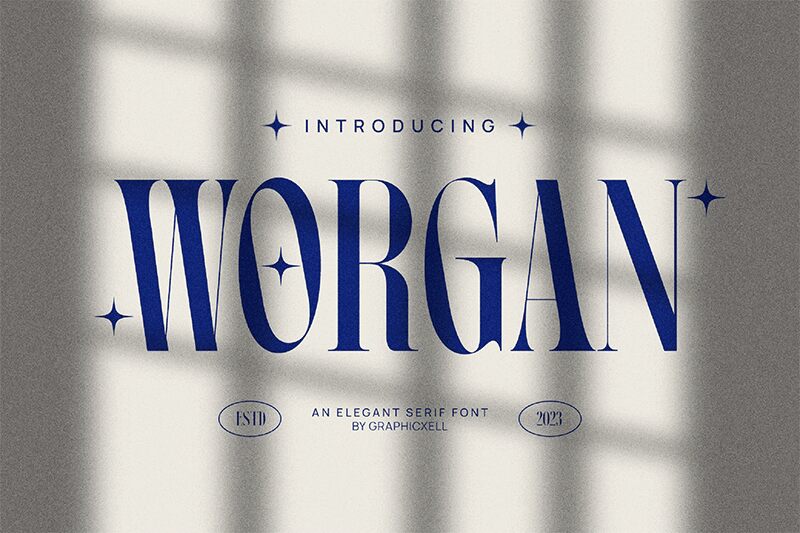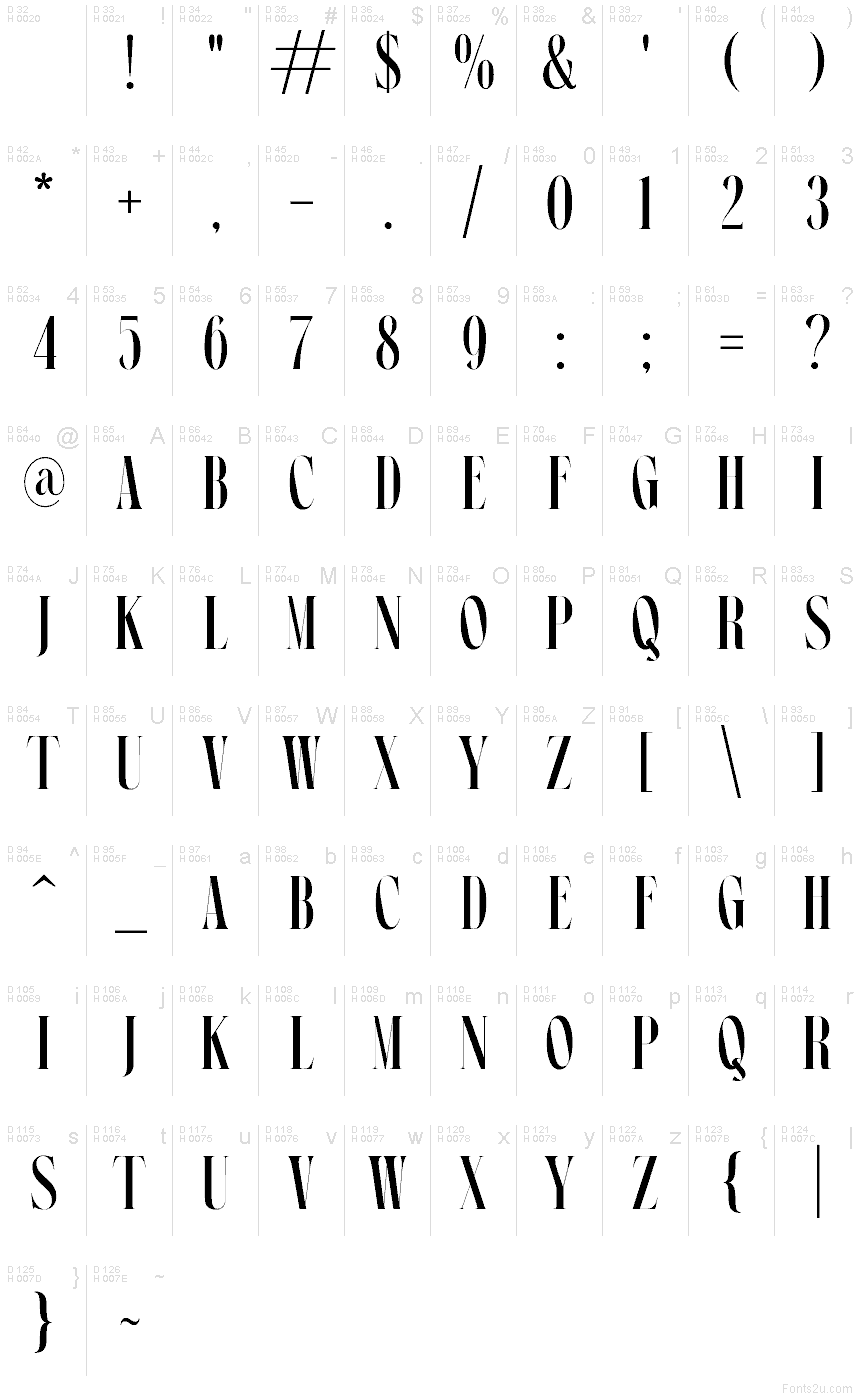
Worgan font by Graphicxell is a free serif font. It carries a glossy, editorial swagger-razor‑thin hairlines slice between bold, inky slabs, and the tall verticals pack letters tight for a striking silhouette. The rhythm feels sleek and theatrical, giving headlines instant presence without shouting.
Using Worgan, you’ll get that luxe polish for fashion branding, magazine covers, posters, cosmetics packaging, event invitations, and album art. The spacing encourages big, confident sizes, where the contrast reads crisp and luminous. For balance, pair this free font with a quiet grotesk or geometric sans for body copy, letting Worgan do the spotlight work in titles and logos.